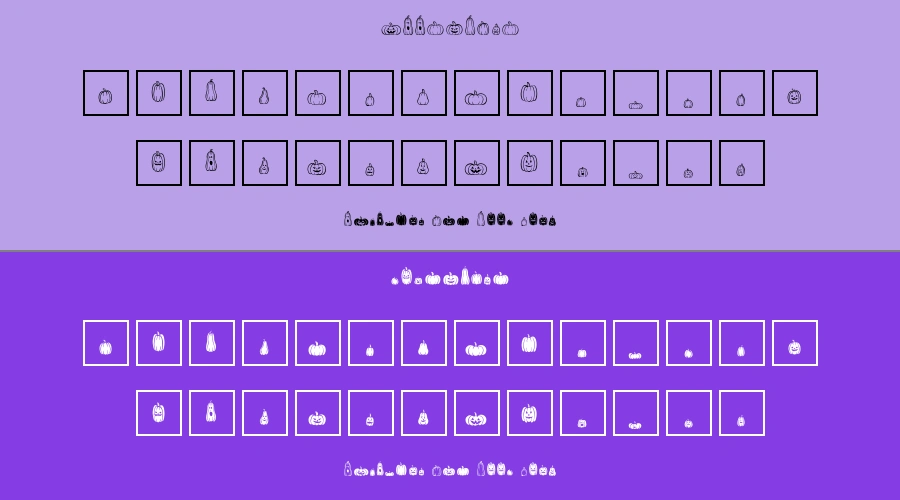
About Pumpkins Are Cool Font
Pumpkins Are Cool Font embodies typographic excellence through its masterful combination of brush influence and system consistency. Created for product naming, this typeface delivers exceptional originality and visual authority across all applications. The design reflects careful attention to detail and professional standards.
Advanced capabilities include distinctive confident strokes and versatile dingbat elements, giving designers creative control. When used in footnotes, Pumpkins Are Cool Font exhibits remarkable detail retention. The harmonious balance between letterfit and creative versatility sets this typeface apart.